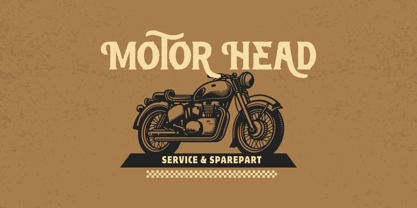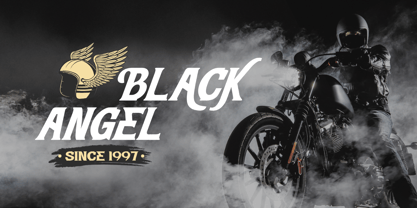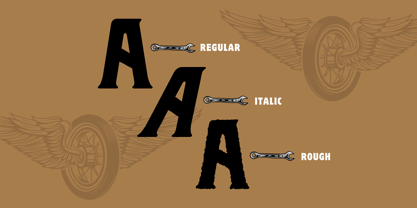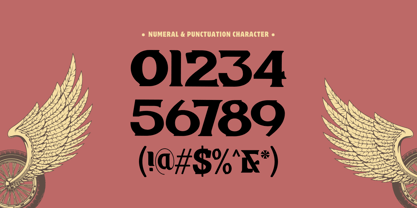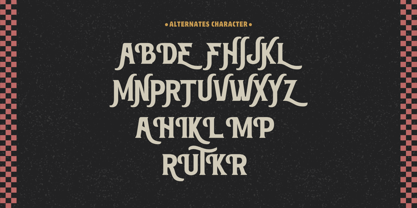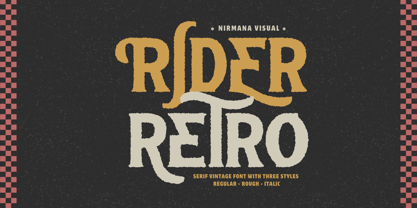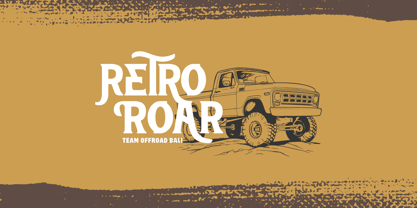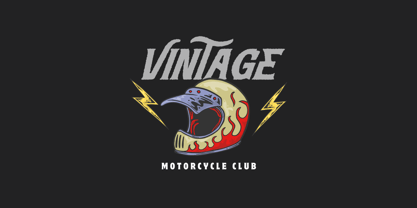
Retro Rider
by Nirmana Visual
The Retro Rider Font Family was designed by Sigit Dwipa and published by Nirmana Visual. Retro Rider contains 4 styles and family package options.
Retro Rider is a bold and stylish retro serif font, perfect for motorcycle-themed projects and vintage designs. Available in three distinct styles Regular, Italic, and Rough. It brings a classic yet rugged feel to logos, branding, and apparel. With strong, elegant letterforms inspired by old-school speed and adventure, Retro Rider captures the essence of the open road. Whether for custom garage logos or retro-style branding, this font delivers a timeless, powerful aesthetic.